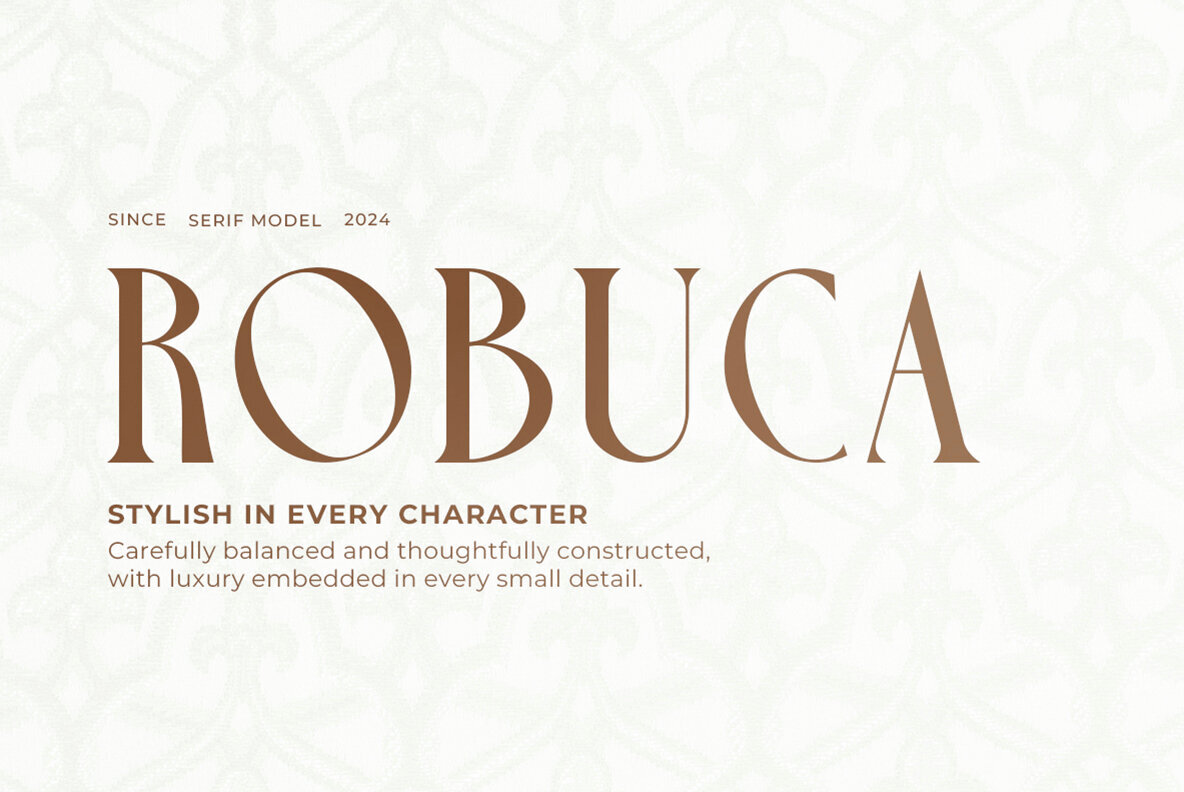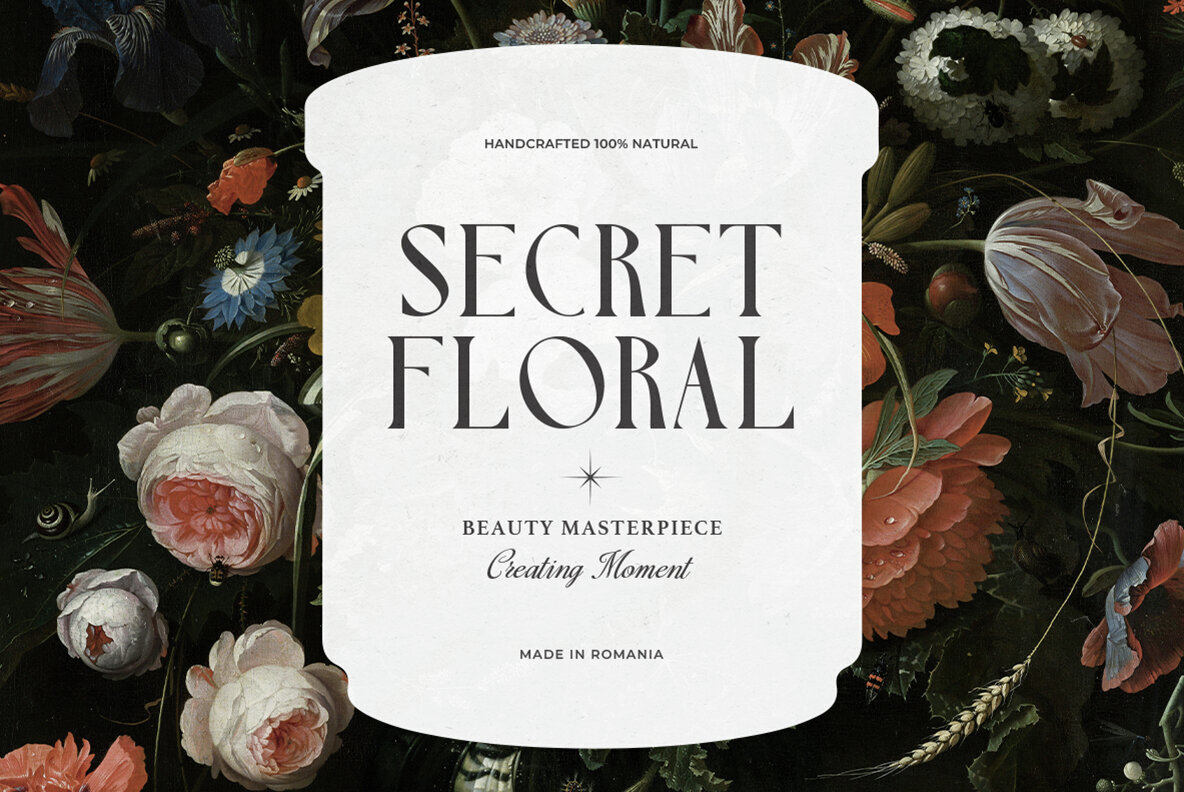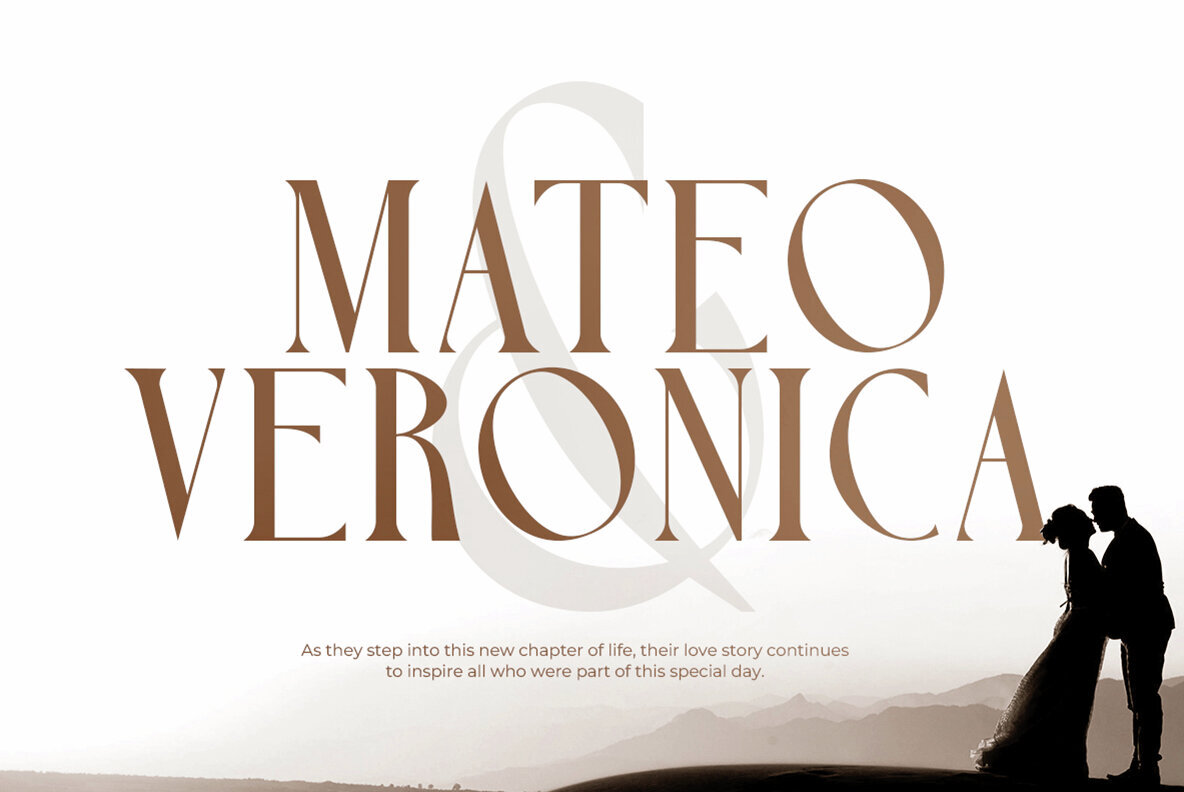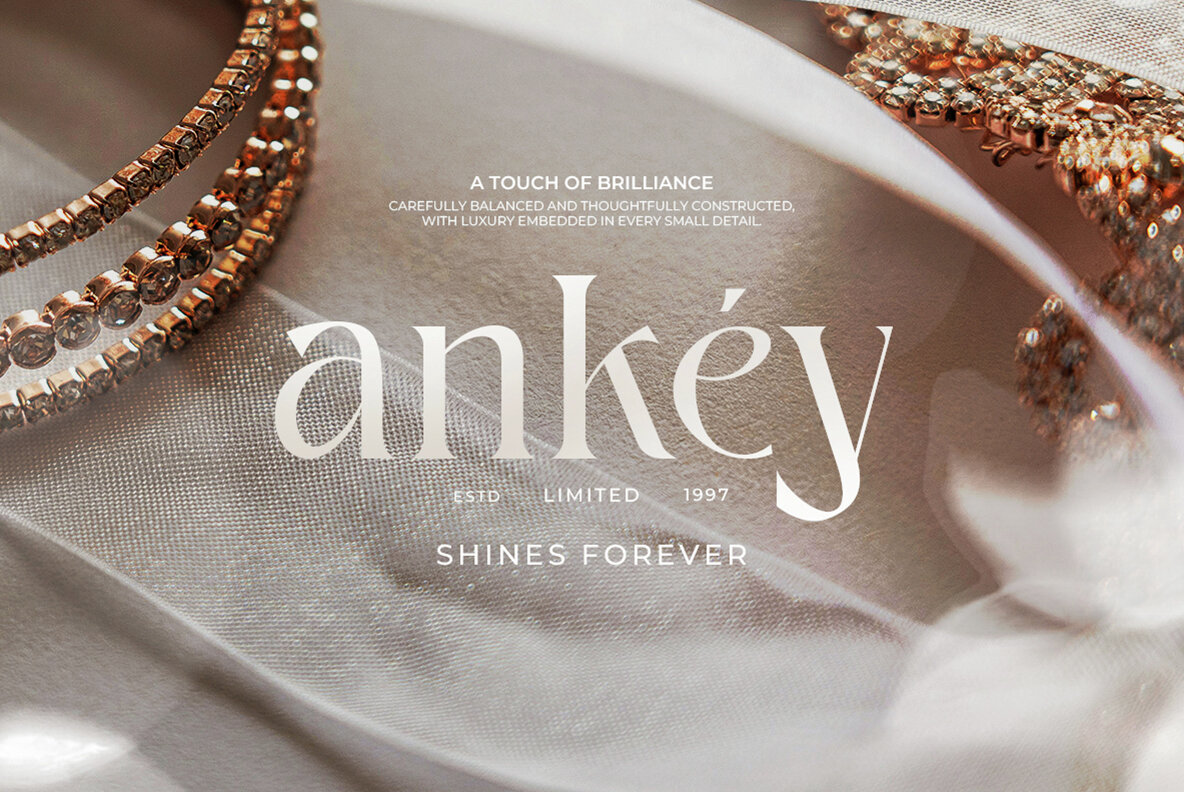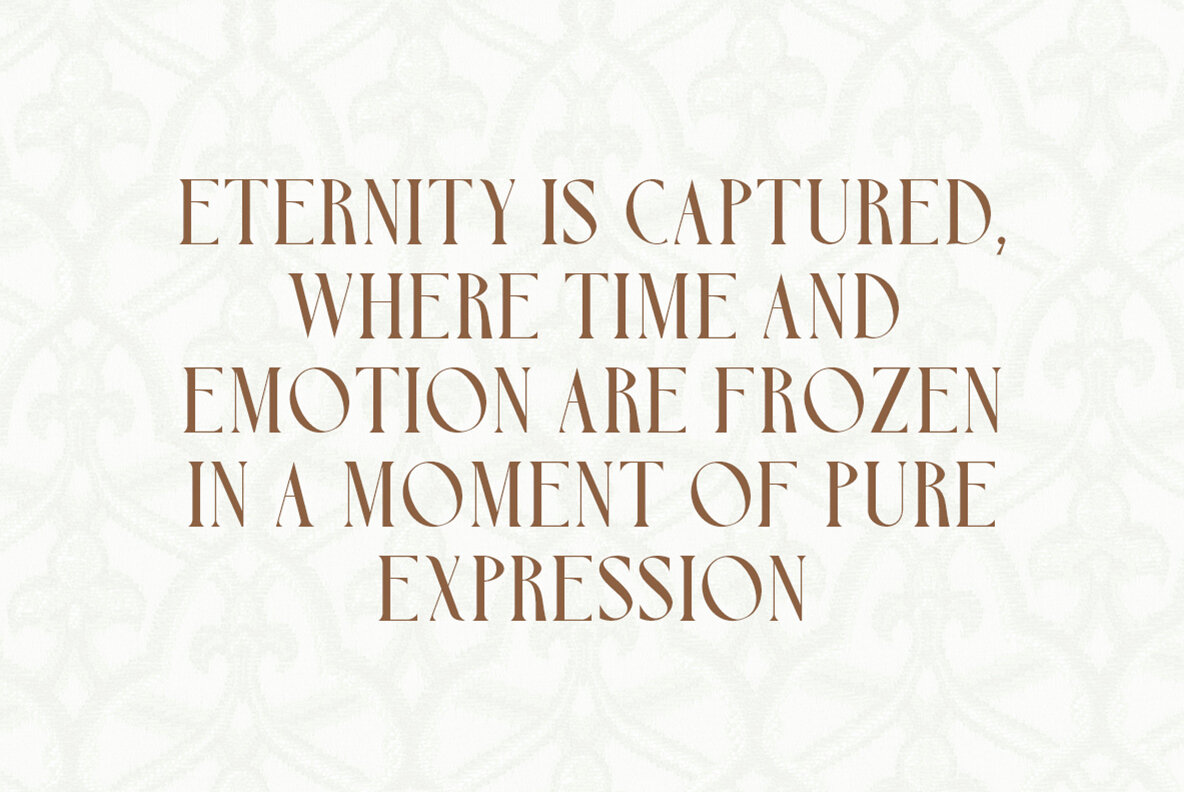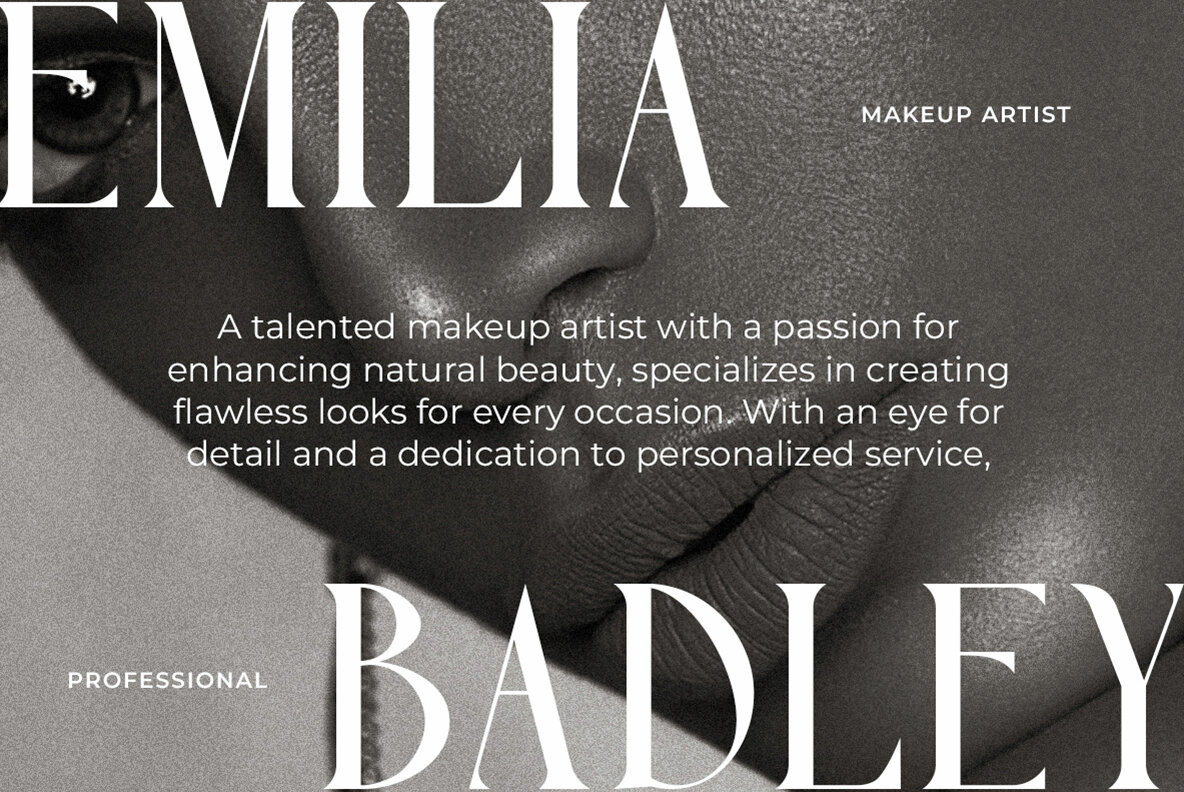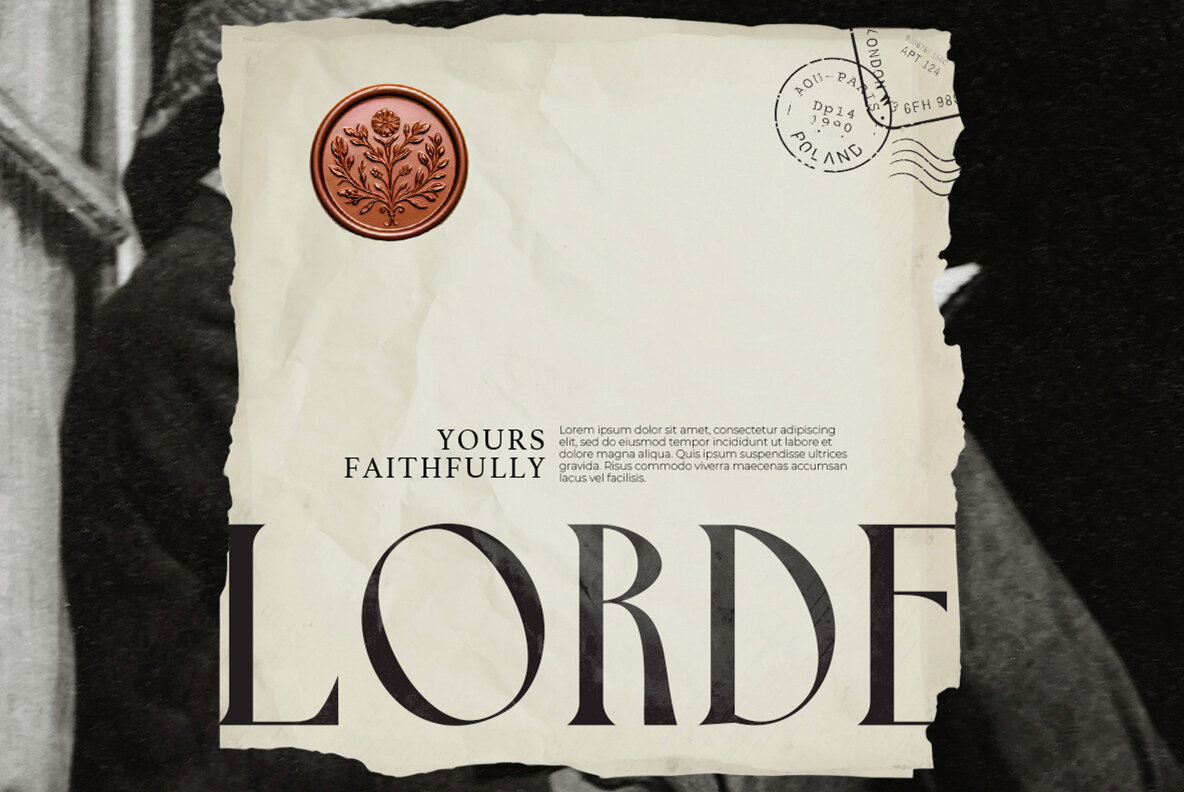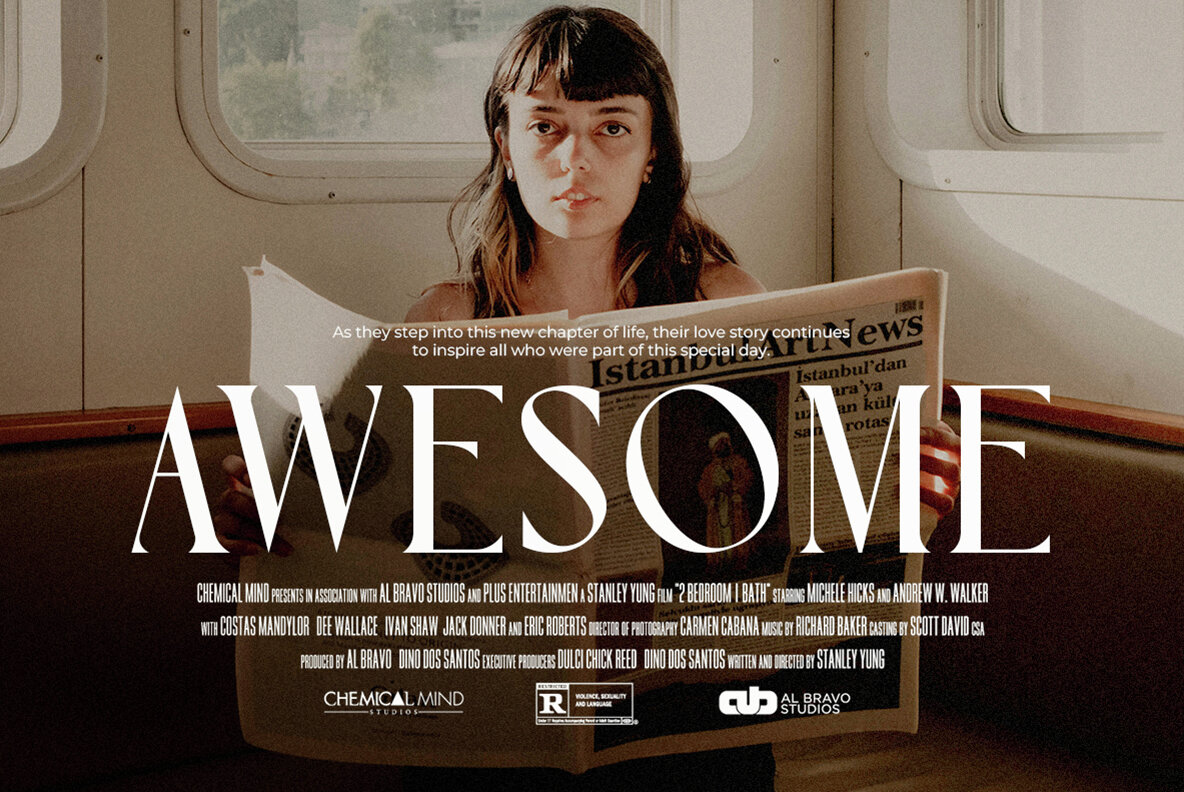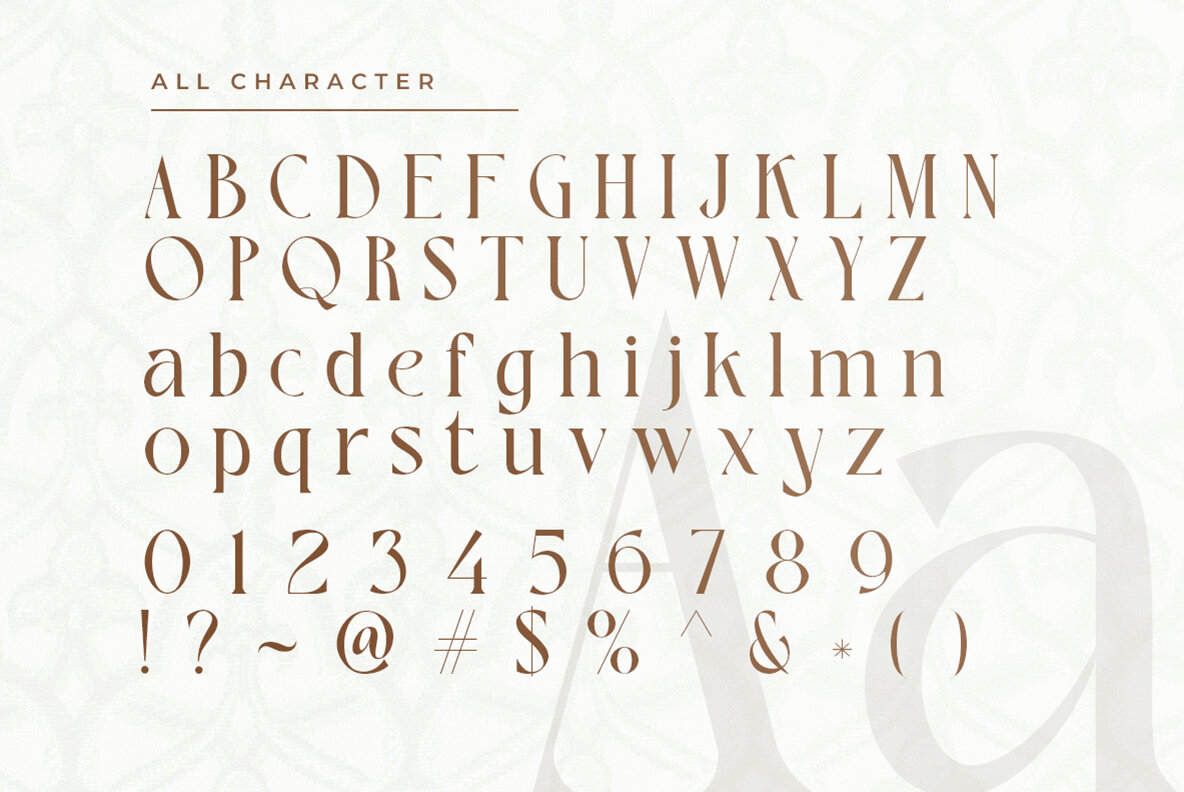
Robuca Font
Robuca Regular
Robuca is a timeless typeface that masterfully combines vintage aesthetics with a modern flair. It is an ideal choice for enhancing product branding with its sophisticated and charming design. This versatile typeface is perfect for various applications, including packaging, logos, and promotional materials, adding a unique sense of style and authenticity to any project.
Robuca's elegant characteristics ensure that it stands out, whether you aim to create a lasting impression or simply add a touch of class to your work. Its ability to blend classic appeal with contemporary design makes it a valuable asset in any designer’s toolkit.